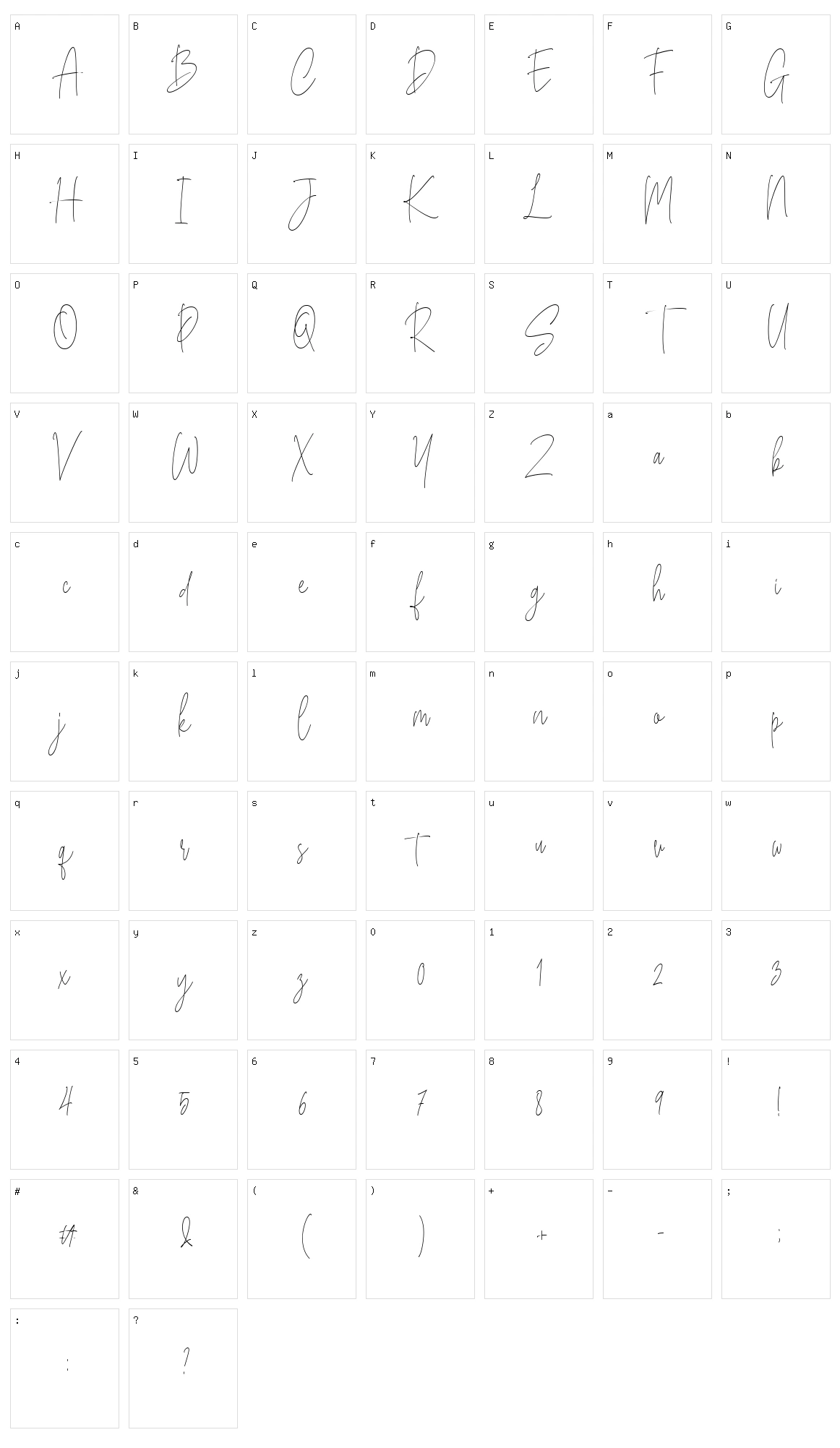
The free font Bucherry is carefully designed by Creatype Studio, showcasing a thoughtful balance of creativity and usability and falls under the Script font style. When you download the ZIP file, it contains only 58.4 KB of font files, making it lightweight and quick to download. Please review the license details below to understand permitted usage and distribution rights. If license information is not available, we recommend using this font for personal projects only or contacting the author directly for commercial usage permissions.